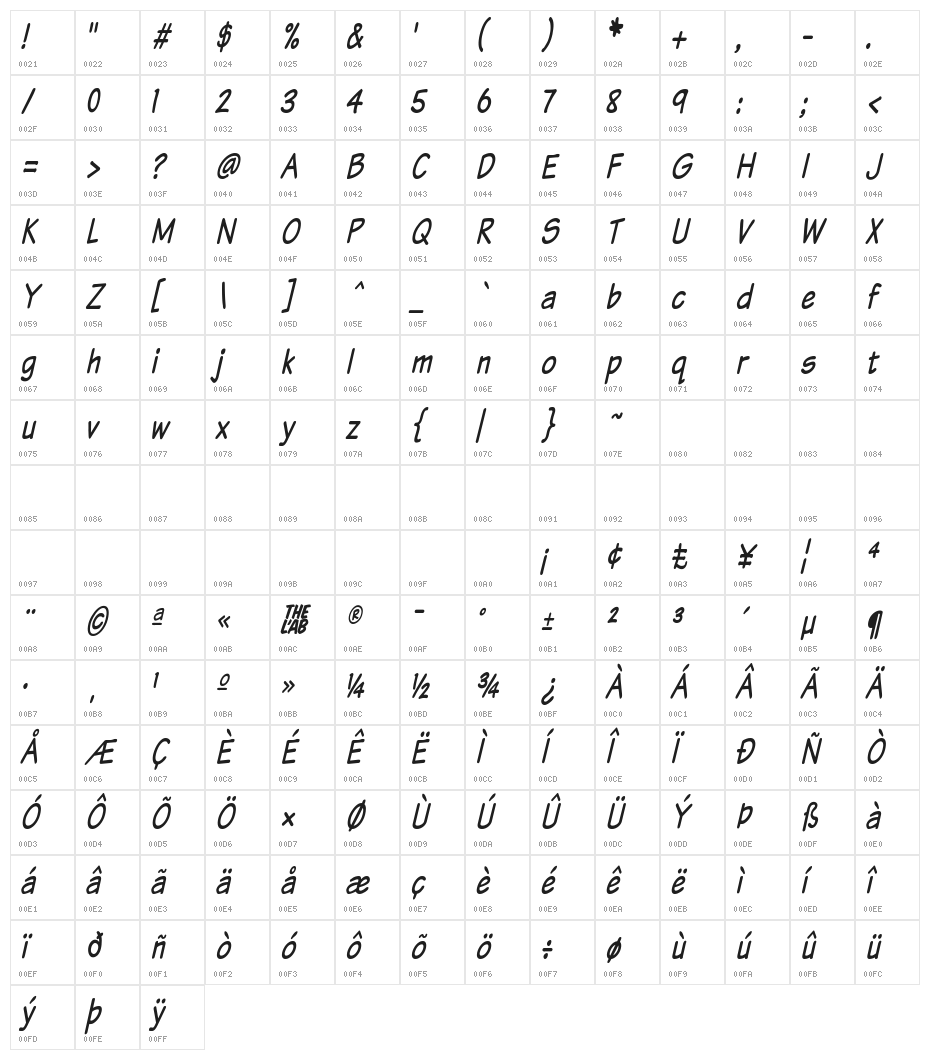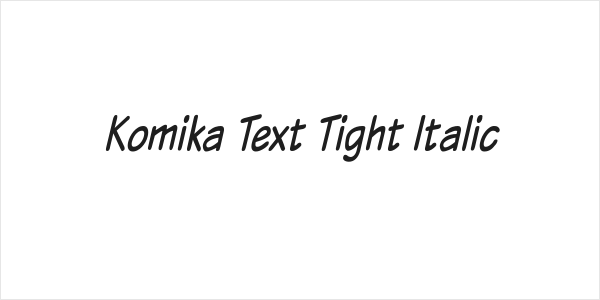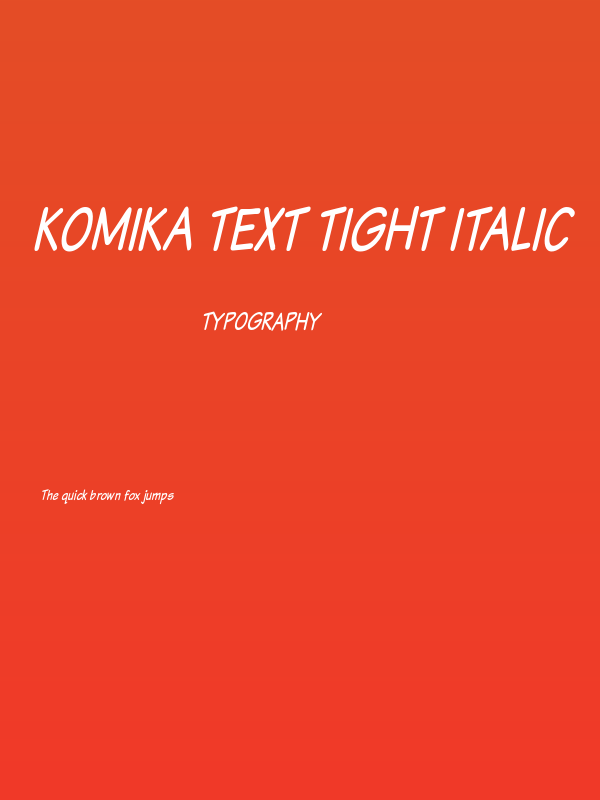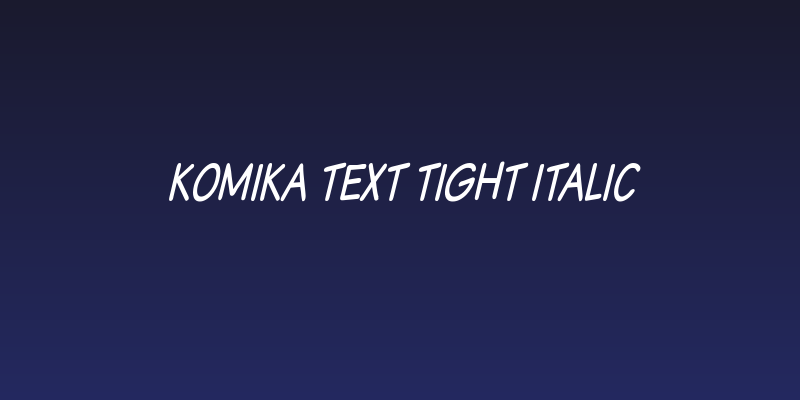
Komika Text Tight Italic Font
Komika Text Tight Italic Description
This font features a playful and dynamic handwritten style with a slight slant, giving it an italicized appearance. The characters are bold and rounded, providing a friendly and approachable look. The uppercase and lowercase letters maintain a consistent flow, while the numerals and special characters complement the overall design. The strokes are smooth and slightly exaggerated, adding to the font's whimsical nature. This style is perfect for projects that require a casual and fun aesthetic, making it suitable for a variety of creative applications.
| Proposed Projects | Ideal for comic books, children's books, playful branding, and casual invitations. |